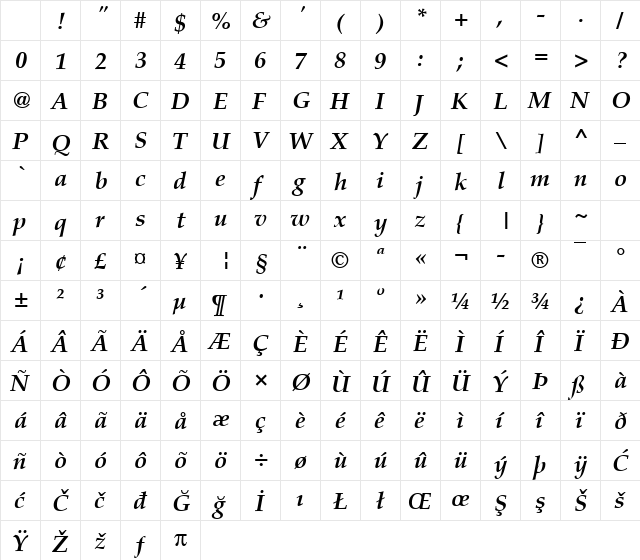
Complete Palladio Becker Bold Italic glyph index. Displaying only characters natively supported by Palladio Becker Bold Italic font.
Palladio Becker is a composed and adaptable typeface that performs quietly and consistently across a wide range of design contexts. The slanted form adds forward momentum and visual energy. Its bold stroke weight gives it real presence on the page.